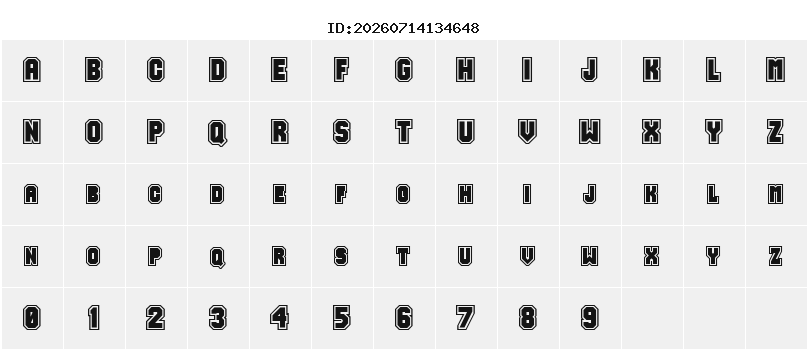
Jersey Preview
• Font Name: Jersey
• Full Font Name: Jersey Normal
About Jersey.ttf
Jersey.ttf is a modern, elegant sans-serif font designed for ultimate readability and visual harmony. Perfect for branding, headlines, web design, and print materials.